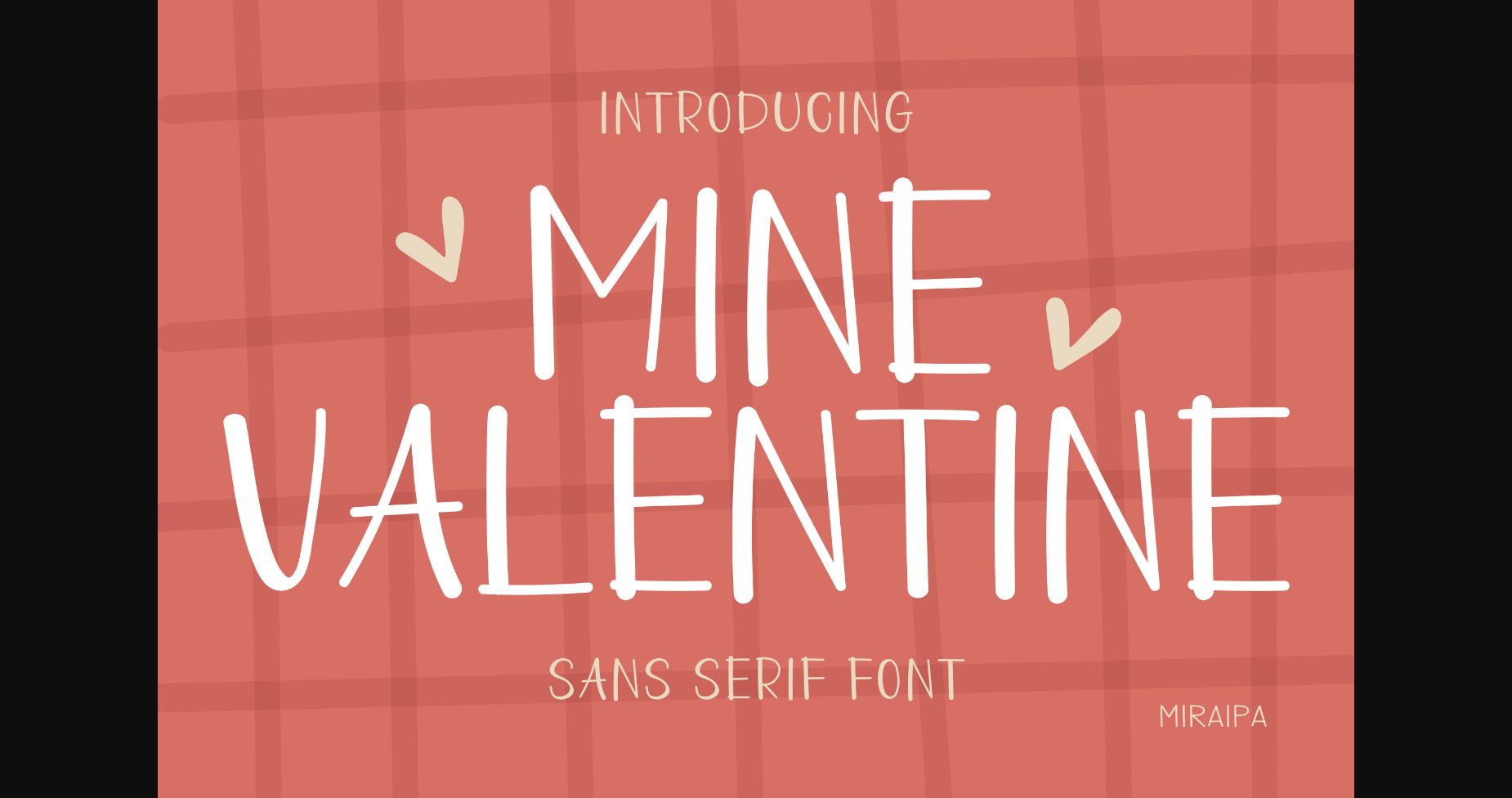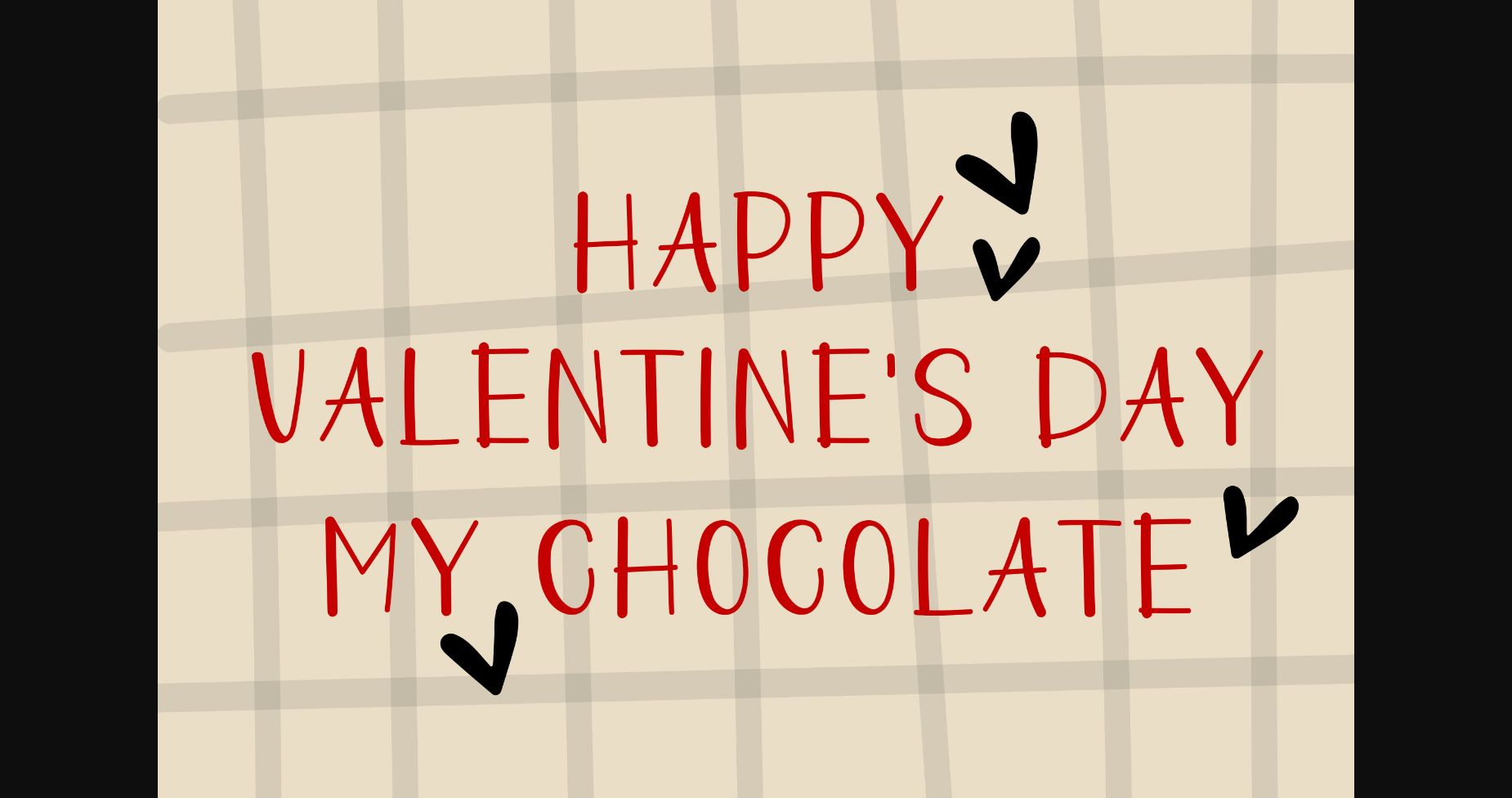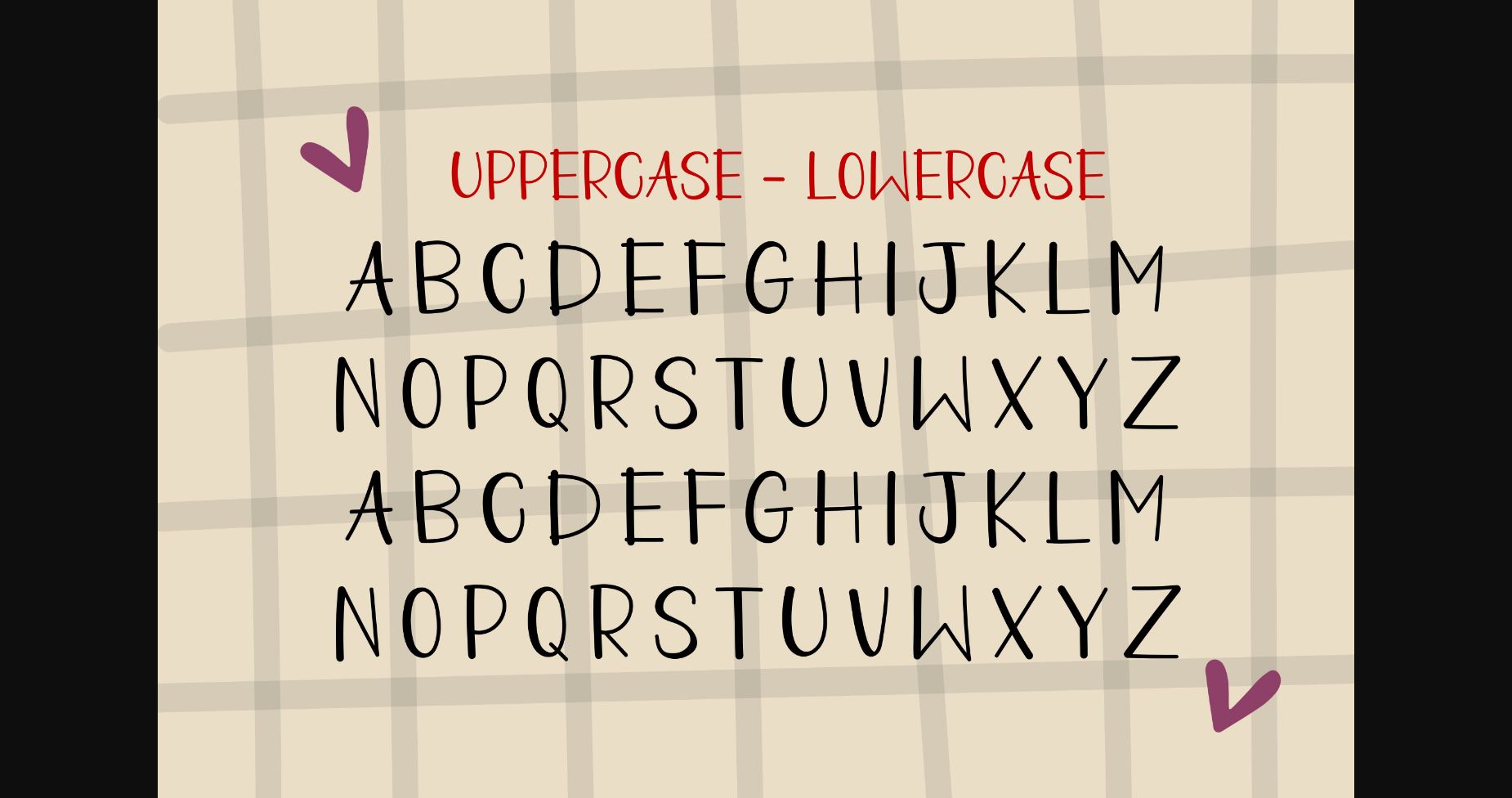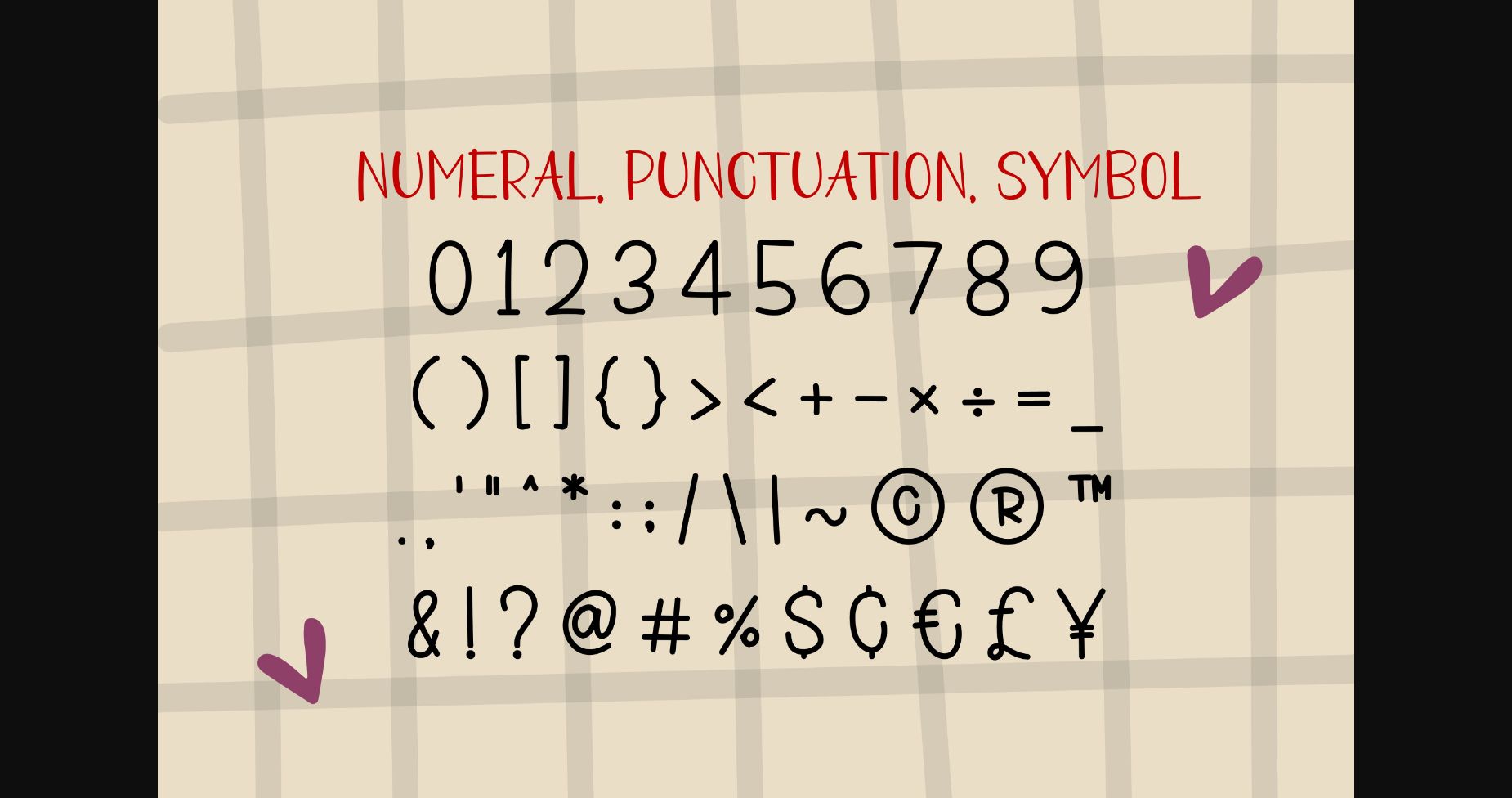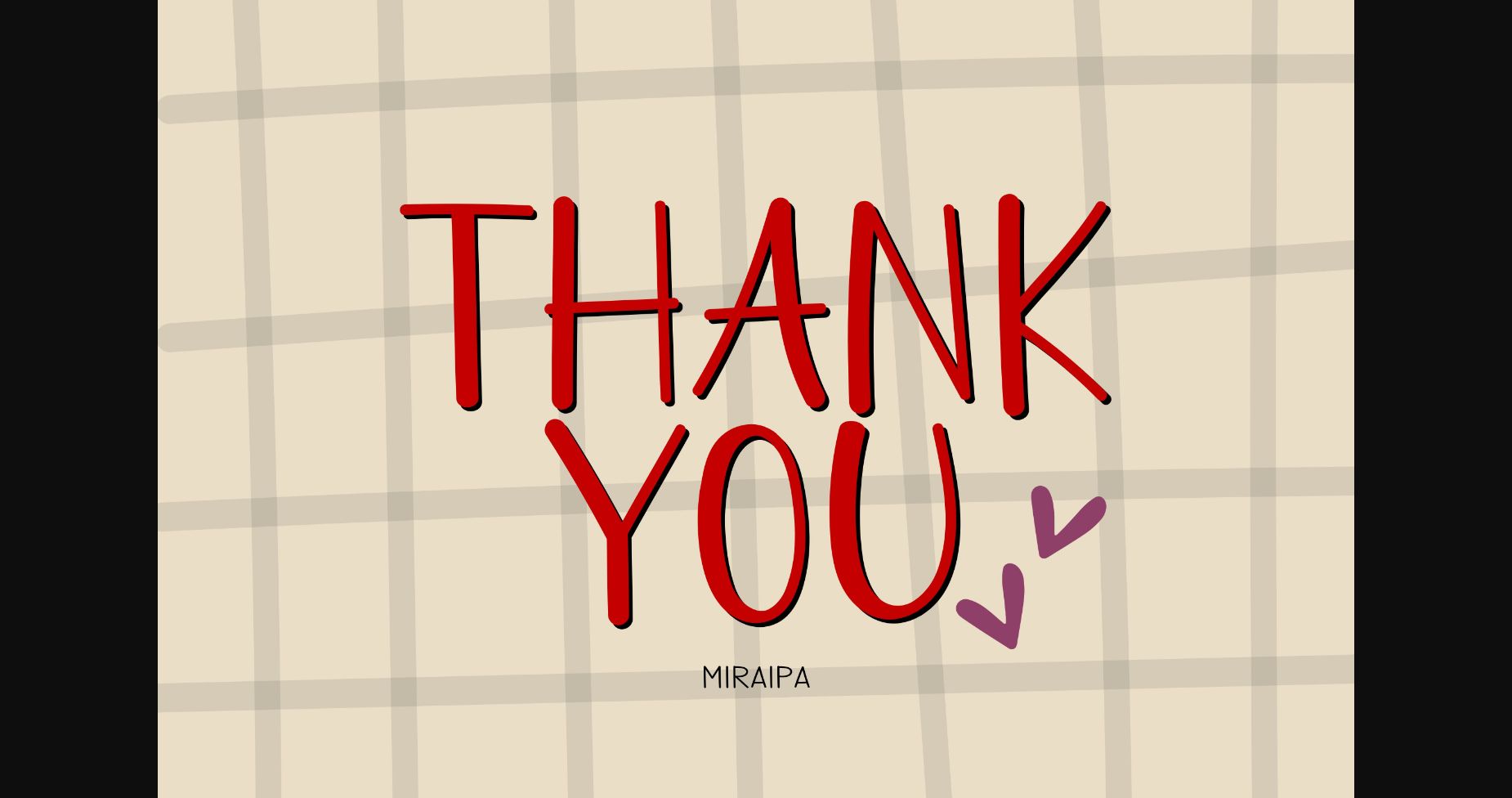
Mine Valentine Font
About Mine Valentine Font
Mine Valentine is designed in a lovely and friendly sans-serif font style. It would be awesome for your projects. It would be awesome for your projects for Valentine’s Day, weddings, back to school, party decorations, invitations, Fall, Halloween, Christmas, posters, blogs, clothing, child-related designs, greeting cards, social media posts, or anything that needs a friendly touch. Add it now to your fonts library, and it will bring any of your DIY projects to life!